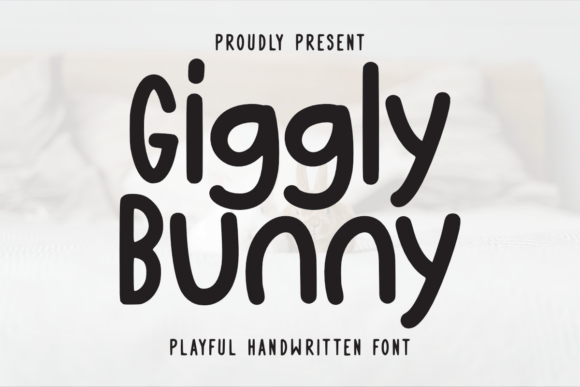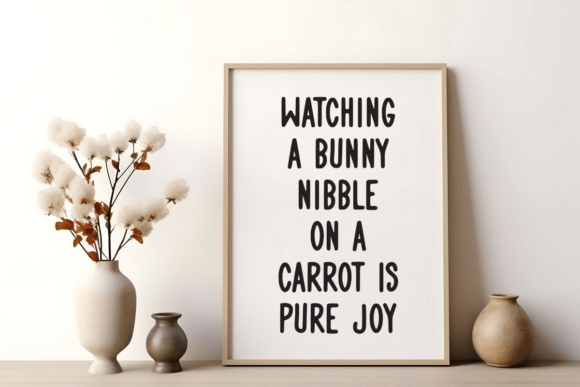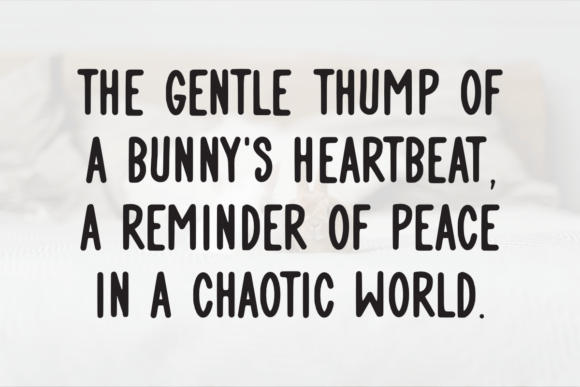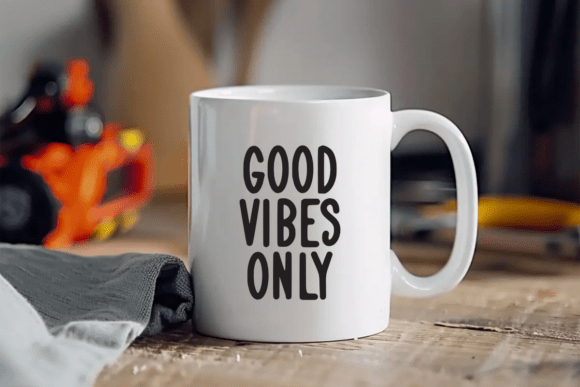
Giggly Bunny Font: A Cute Handwritten Font for Playful Branding!
About the Giggly Bunny Font
We are excited to introduce Giggly Bunny Font, a must-have typeface for any serious designer. Giggly Bunny is a playful handwritten font full of fun and personality. Its rounded strokes and soft, cheerful vibe make it the perfect choice for kids’ projects, logos, packaging, and anything that calls for a touch of cuteness. Whether you’re designing for birthdays or branding baby goods, this font brings the giggles.
Giggly Bunny’s cheerful personality shines in headlines, short slogans, and playful branding for children’s products or businesses targeting a young, fun-loving demographic. It’s also effective for packaging design, particularly where a whimsical touch is desired. However, its informal nature makes it less suitable for body text or applications requiring high readability, such as websites or UI elements.
Pairing Giggly Bunny with a clean sans-serif like Open Sans for body copy provides excellent contrast, balancing the font’s playful energy with a sense of order and legibility. Alternatively, a classic serif like Garamond could create a sophisticated juxtaposition, highlighting Giggly Bunny’s unique charm.
For a more whimsical feel, consider pairing it with a complementary script font with similar rounded forms to maintain visual harmony. Avoid pairing it with overly geometric or serious fonts, as this would clash with its inherently lighthearted nature.
Giggly Bunny Font Usage Examples
Giggly Bunny Font Example